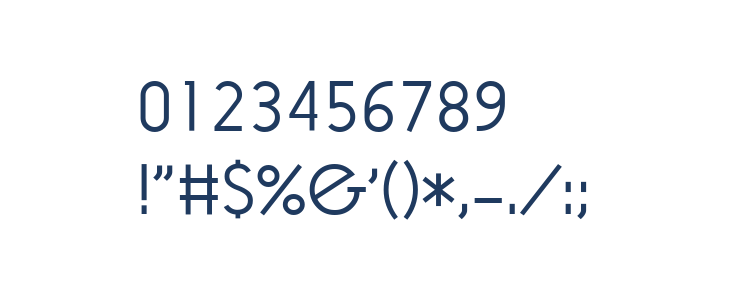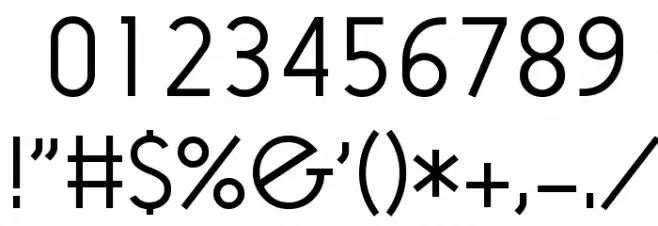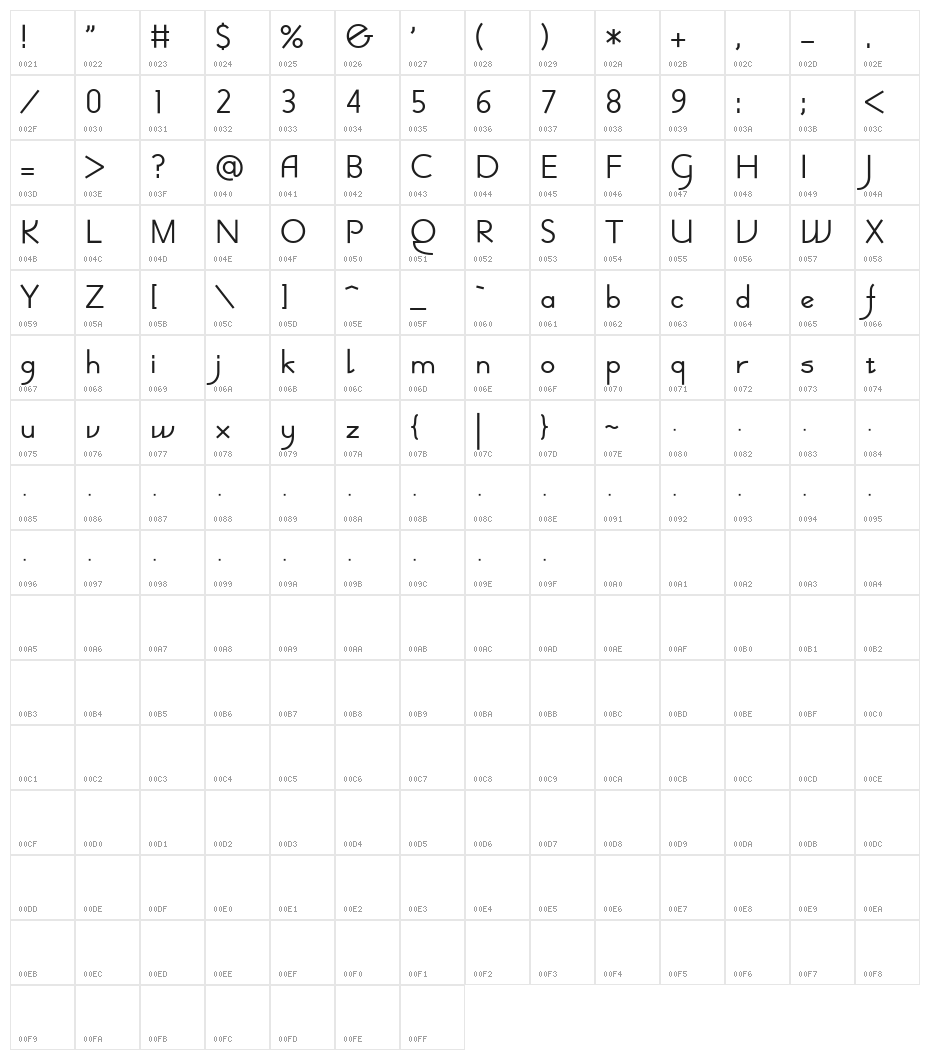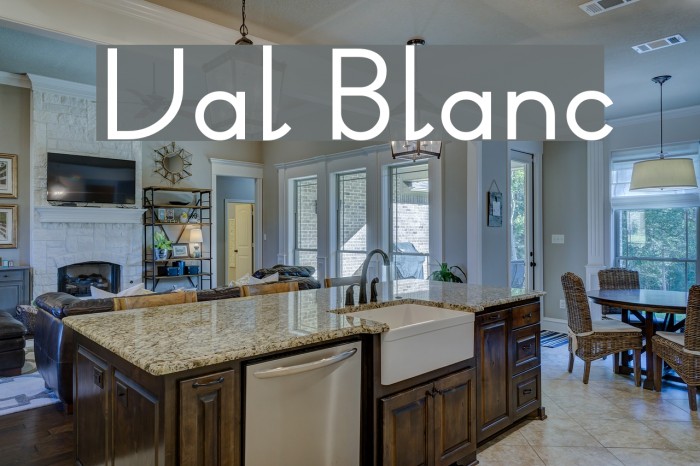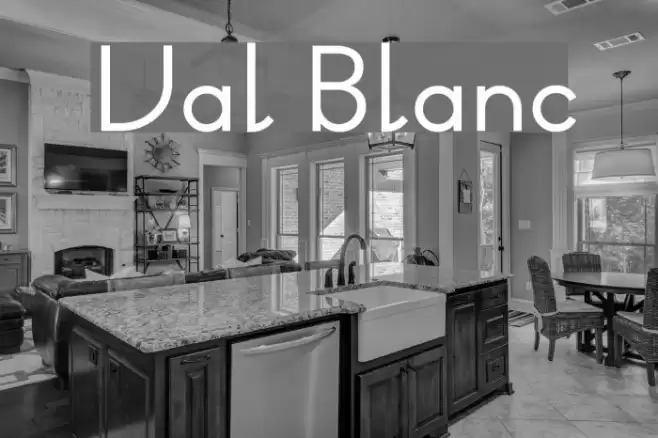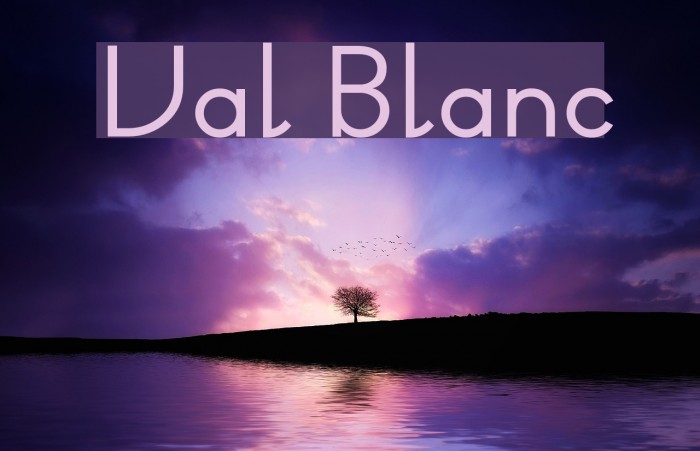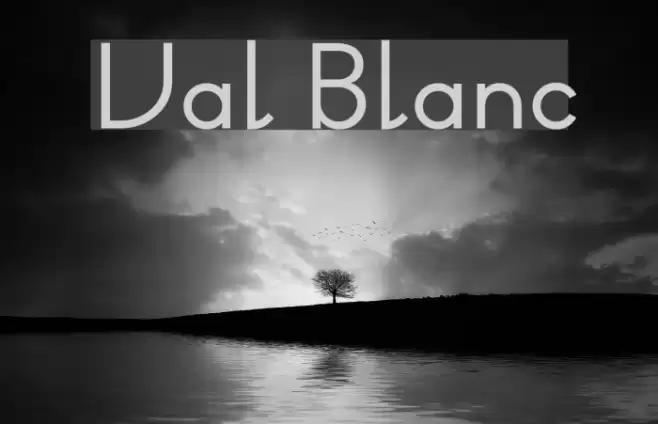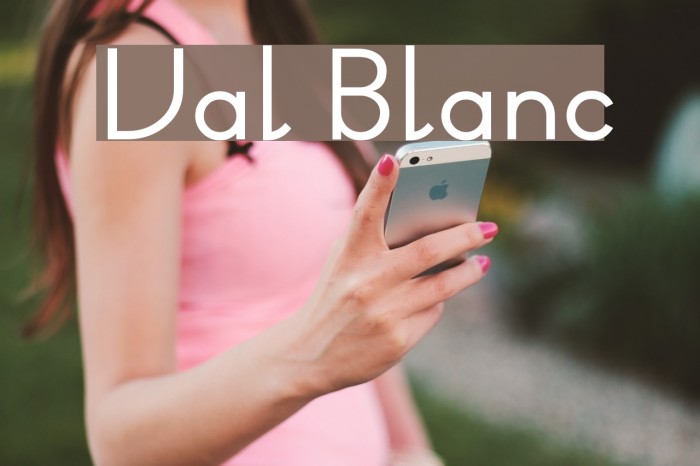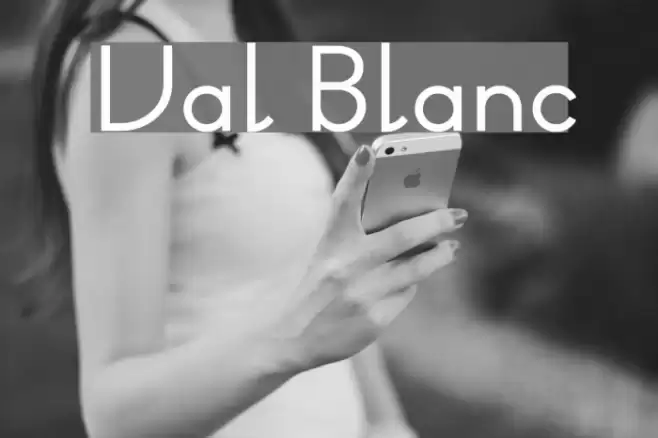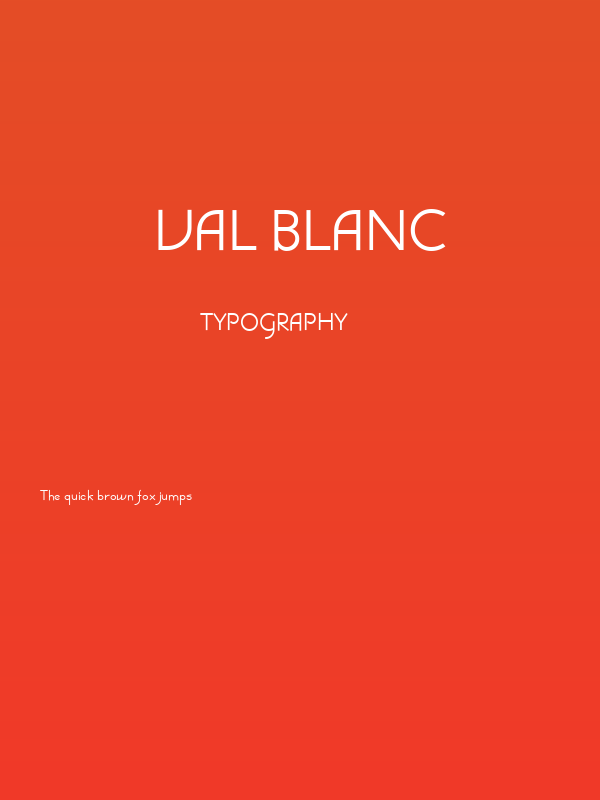
Val Blanc Font
Val Blanc Description
This font exhibits a clean and modern aesthetic with a geometric structure. The characters are crafted with a uniform stroke width, contributing to a harmonious and balanced appearance. The uppercase letters are bold and assertive, while the lowercase letters maintain a friendly and approachable demeanor. The numerals are clear and legible, making them suitable for various applications. The special characters are designed with the same geometric precision, ensuring consistency across the typeface. This font is versatile, offering a contemporary look that can be adapted to a wide range of design projects.
| Proposed Projects | Ideal for branding, advertising, digital interfaces, and editorial design. |